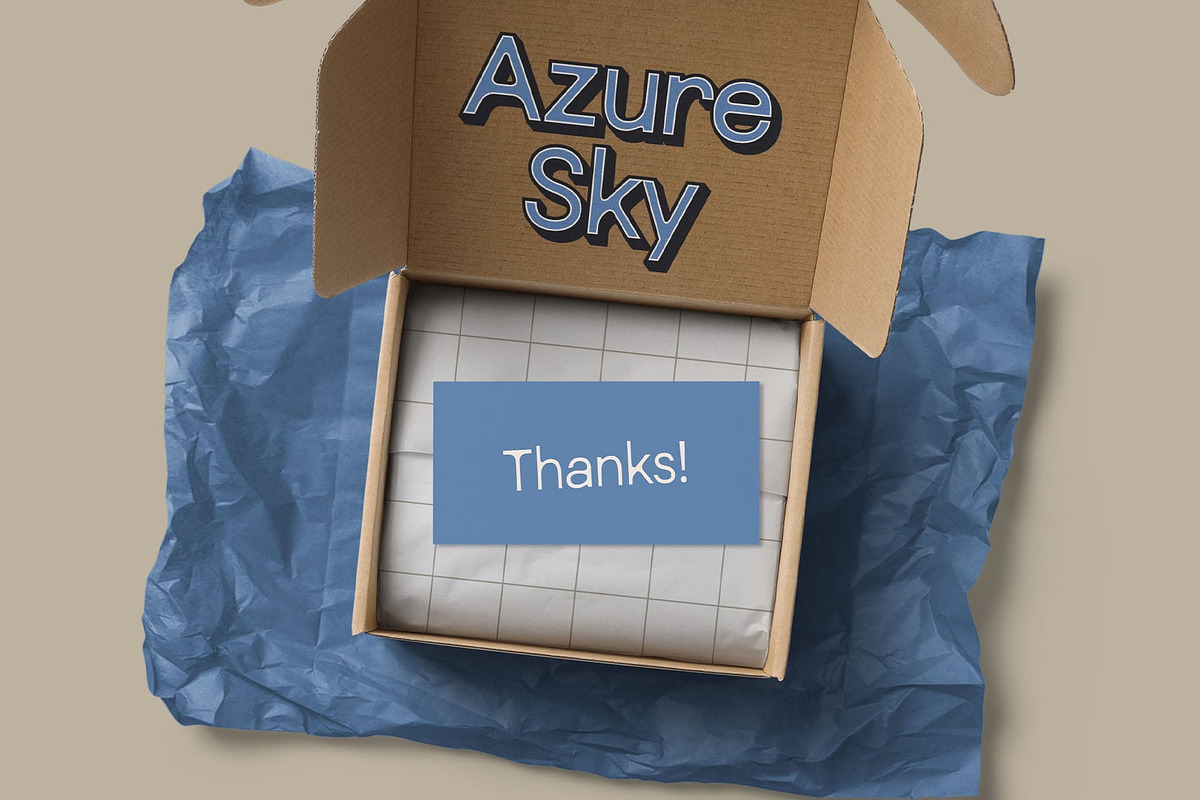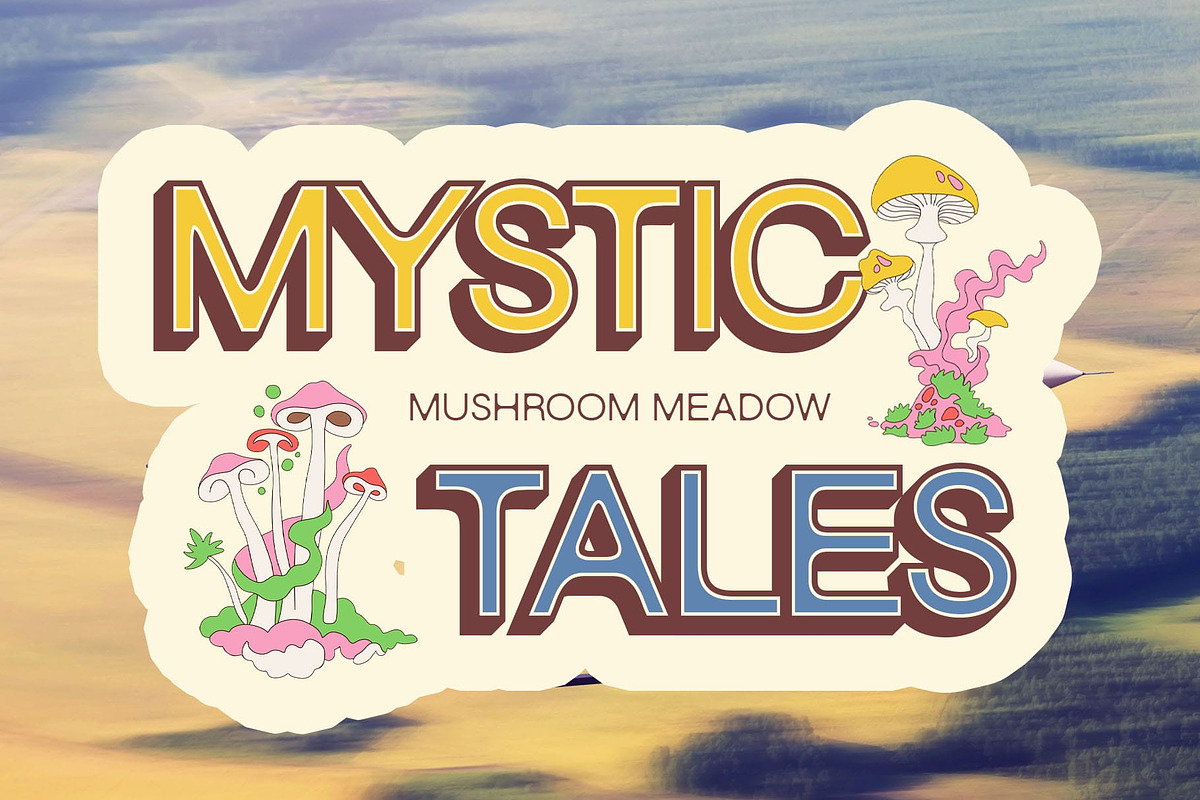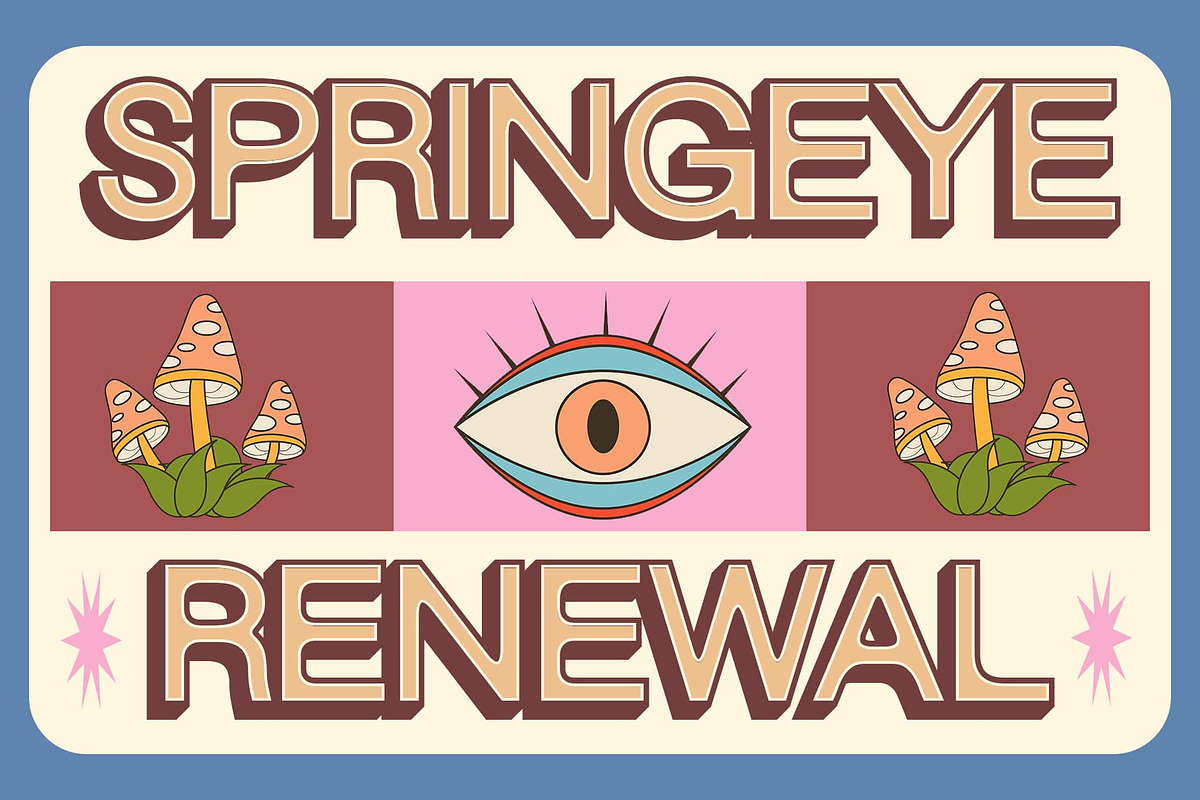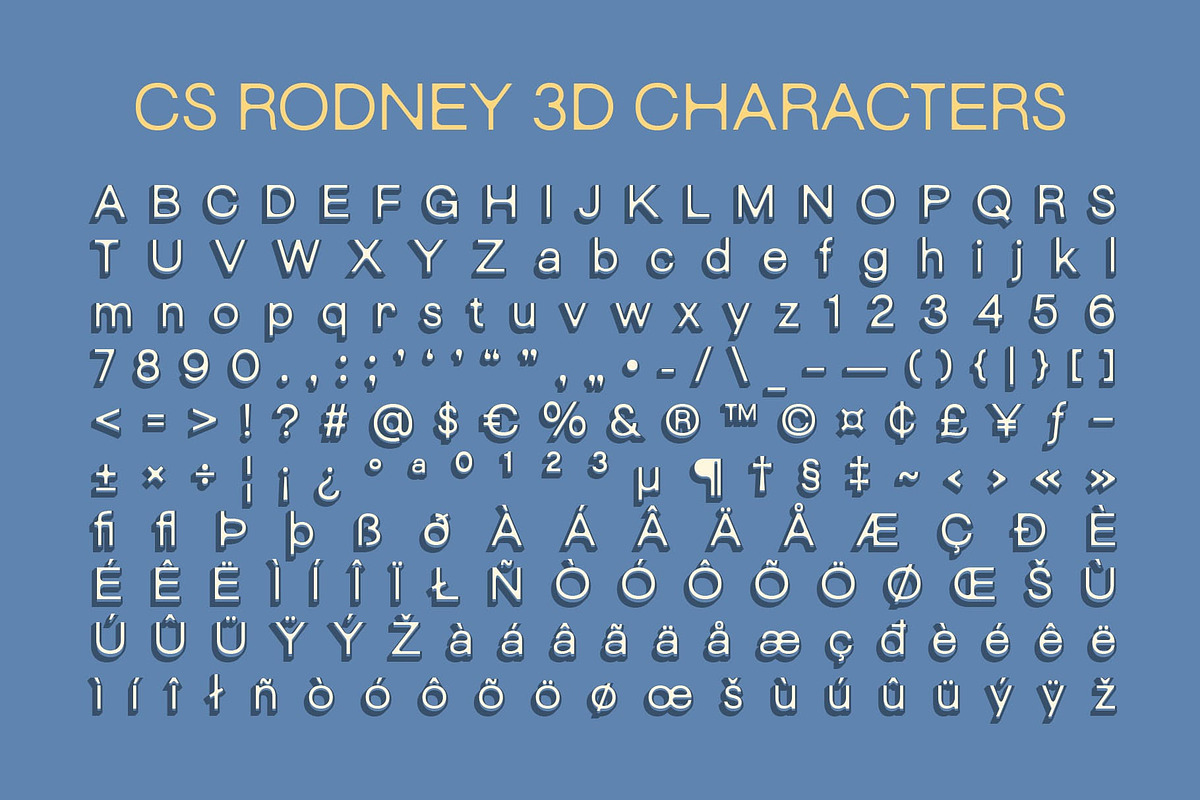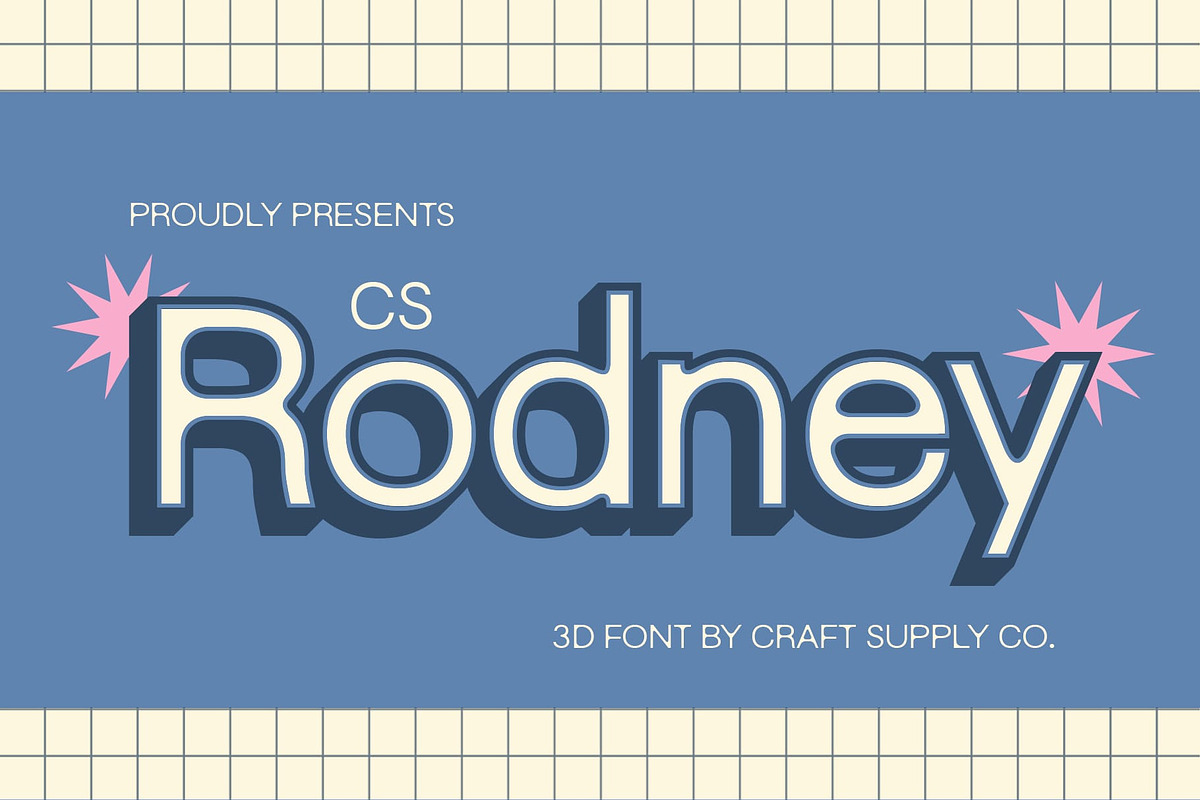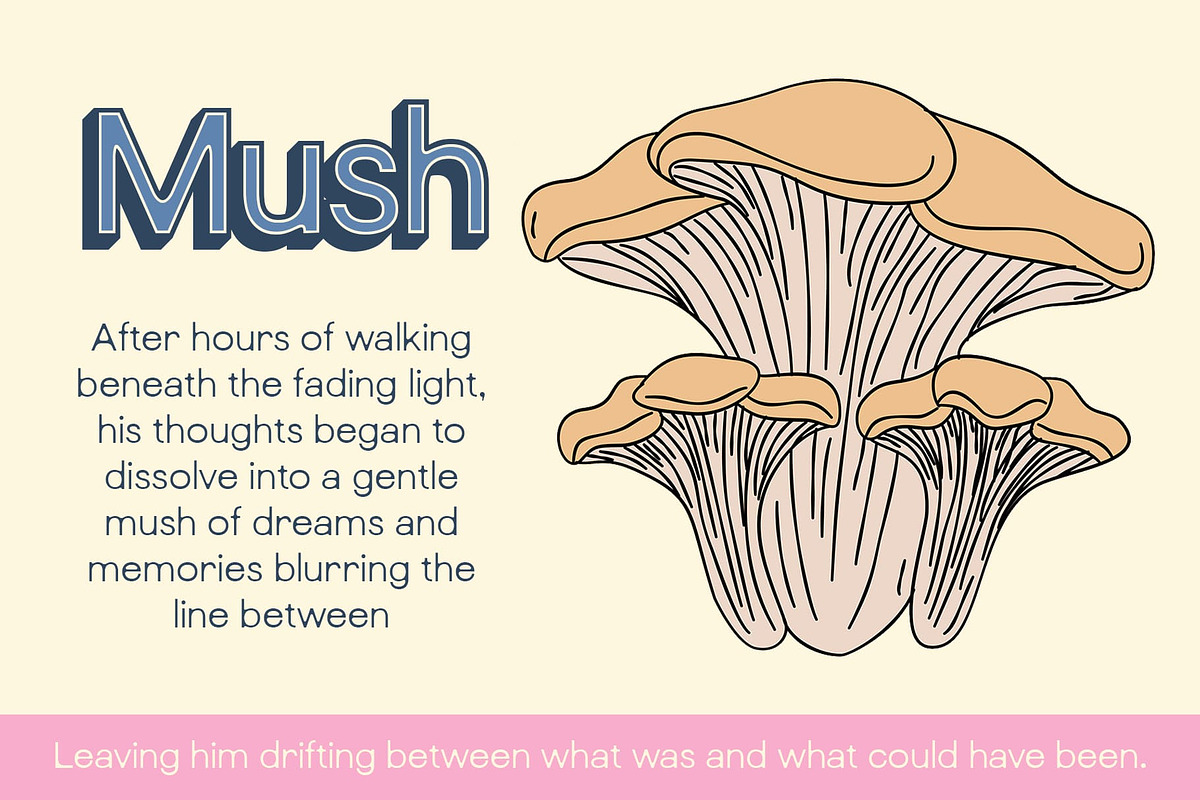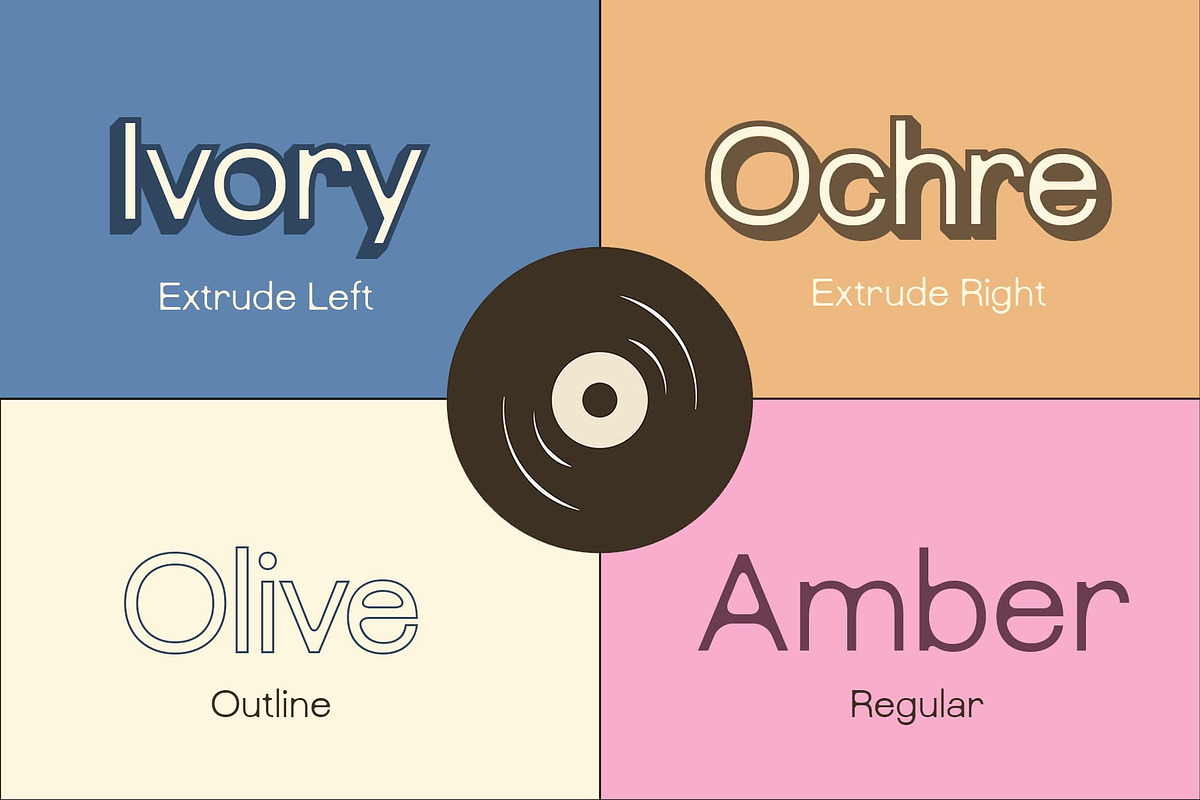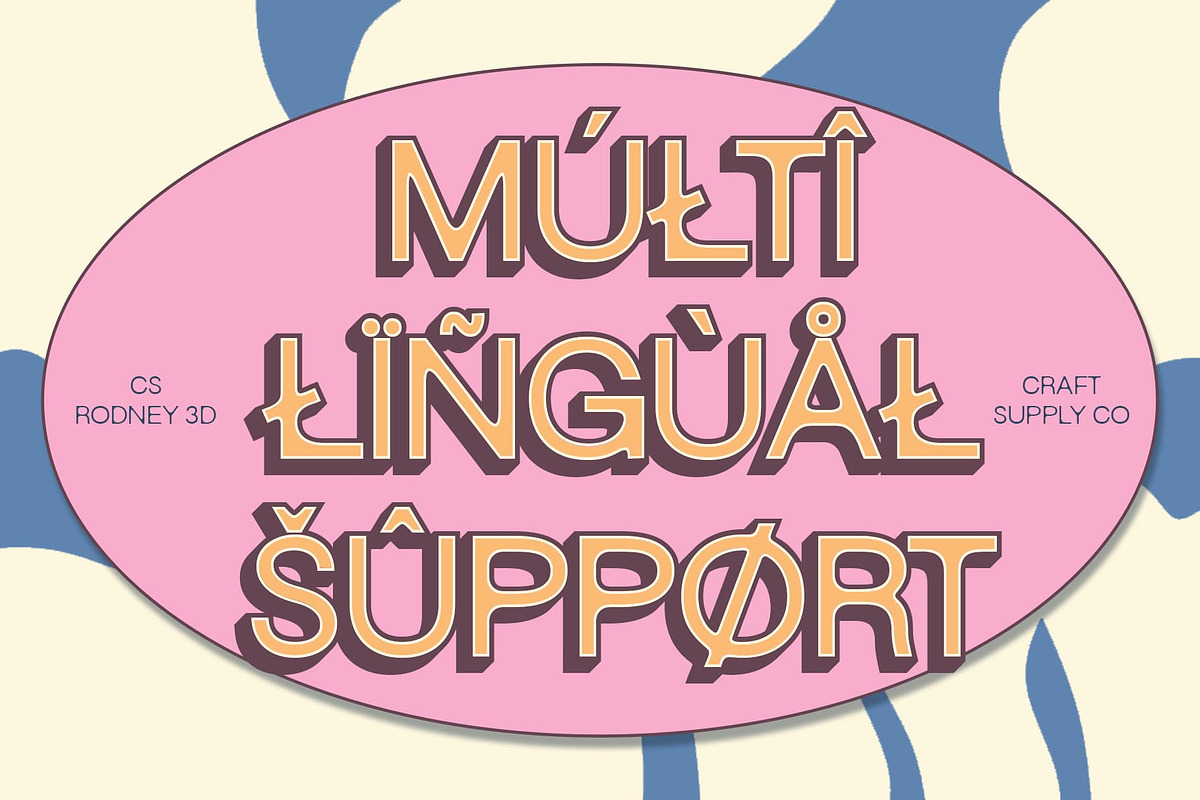
CS Rodney 3D
CS Rodney 3D Font – Modern Meets Dimensional Boldness
Sleek Minimalism with Depth CS Rodney 3D is a modern sans-serif font that combines clean, minimalist letterforms with a subtle yet effective 3D effect. It brings a fresh, refined look to contemporary design, offering a professional tone with a creative twist. The balance between minimalism and depth makes this font both functional and visually appealing, standing out without overwhelming your layout.
Subtle 3D for a Dynamic Impression The carefully applied 3D effect adds a layer of sophistication and energy to the font. It enhances each character with a soft dimensional lift, creating a visual rhythm that feels modern and bold. This subtle depth not only adds interest but also helps draw the viewer’s eye—making it perfect for headlines, display text, or hero visuals that need to pop.
Ideal for Tech and Modern Branding CS Rodney 3D is designed for clarity and innovation, making it a go-to choice for tech companies, startups, and brands that want to communicate modernity and precision. From digital interfaces to futuristic logos and sleek packaging, its contemporary shape and bold presence deliver a forward-thinking visual language.
- CS Rodney Regular
- CS Rodney Outline
- CS Rodney Extrude Right
- Cs Rodney Extrude Left